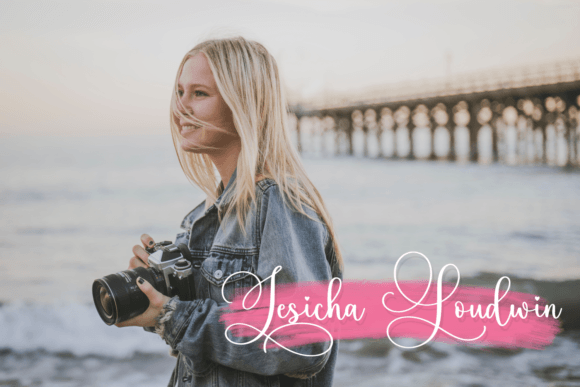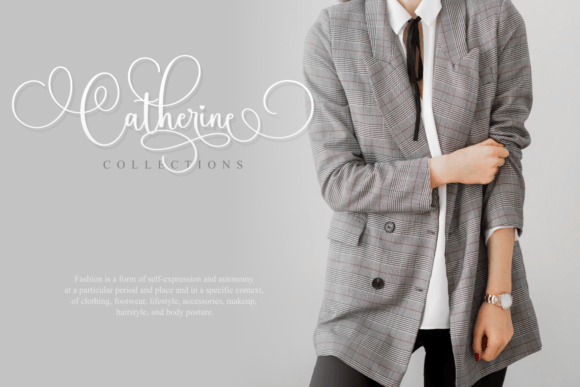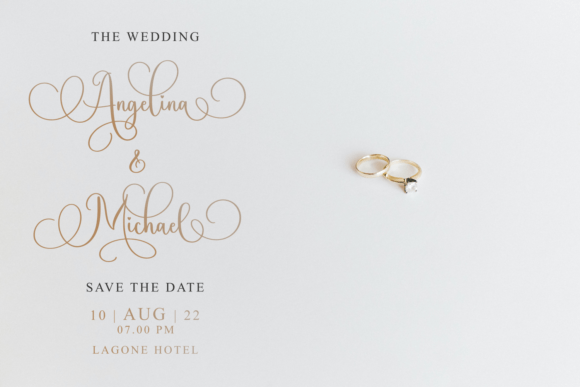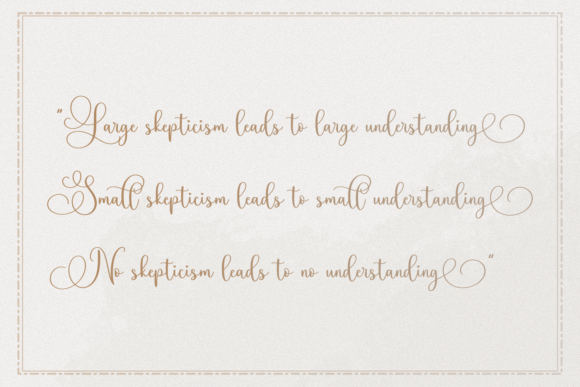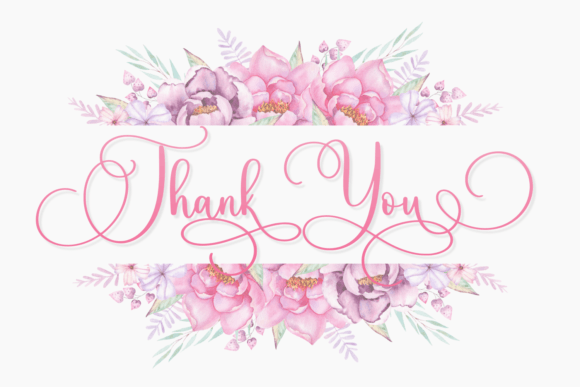
The Elegance of Geshila: A Calligraphy Script Font to Elevate Your Designs
I’ll never forget the time I was working on a branding project for a luxury wedding planner. My client wanted a font that exuded elegance and sophistication, but I was struggling to find the perfect one. That’s when I stumbled upon Geshila, an exquisite calligraphy script font that instantly caught my eye. In this article, I’ll share my experience with Geshila, its features, and how to make the most of it in your designs.
An Honest Review of Geshila
What I Love About Geshila ✨
- 💫 Elegant and classy: Geshila’s calligraphy style adds a touch of luxury to any design.
- ✅ Versatile: Suitable for logos, labels, branding, invitations, websites, quotes, and more.
- 🔥 High-quality: Professionally crafted with attention to detail, ensuring a polished look.
- 🌈 Extensive character set: Includes a wide range of letters, numbers, and punctuation marks.
- ⚠️ Limited use in body text: Due to its script nature, Geshila might not be the best choice for lengthy paragraphs.
- ⚠️ May require adjustments for certain languages: Some languages might require additional setup or character substitutions.
- Experiment with OpenType features, such as stylistic alternates, to add variations to your text.
- Explore glyphs and ligatures to add a personal touch to your designs.
The Story Behind Geshila
Geshila was designed by a team of typographers who aimed to create a font that embodies elegance and refinement. Inspired by traditional calligraphy, they crafted a font that is both timeless and versatile. The name “Geshila” reflects the font’s sophisticated and cultured personality.